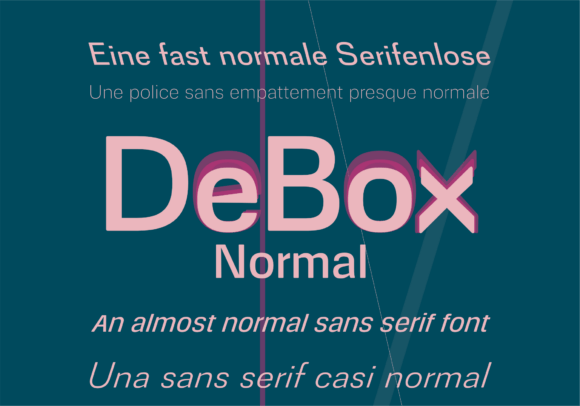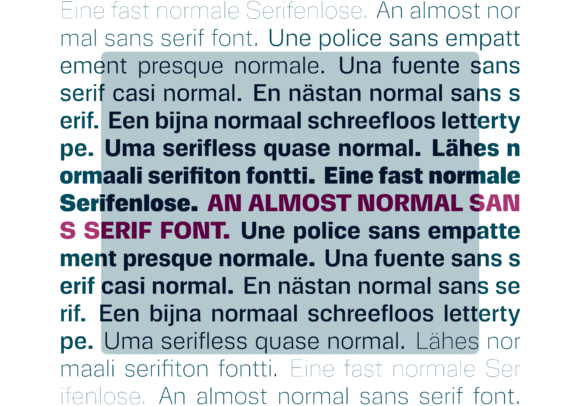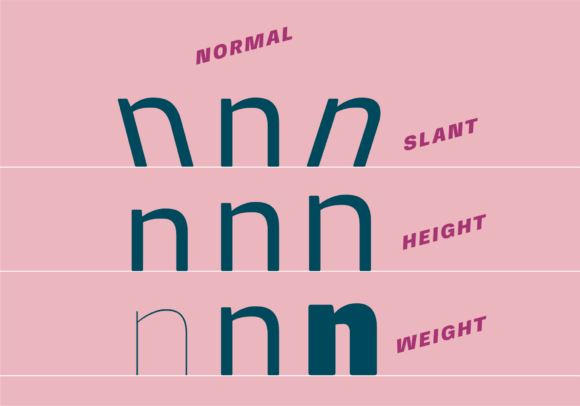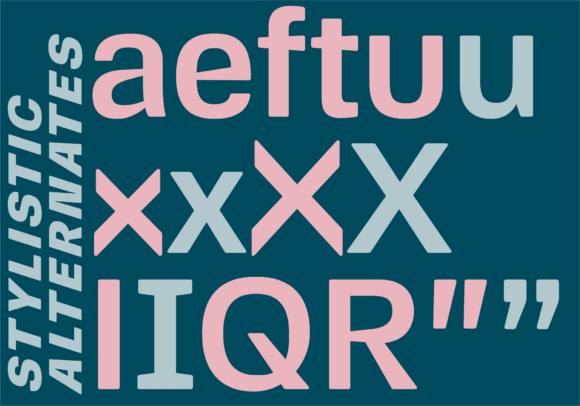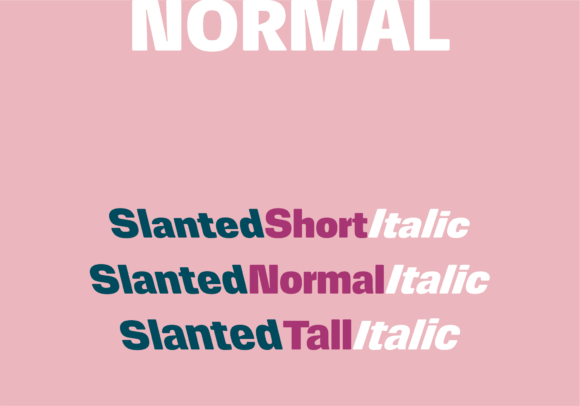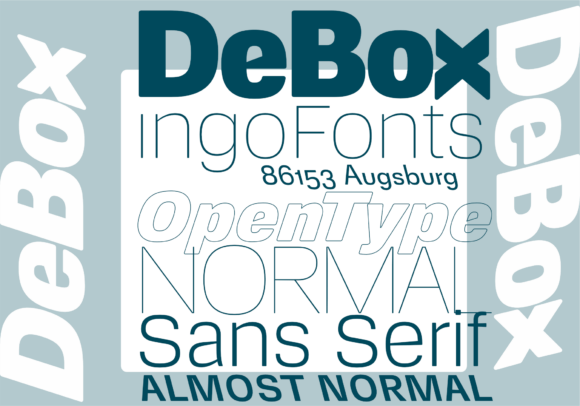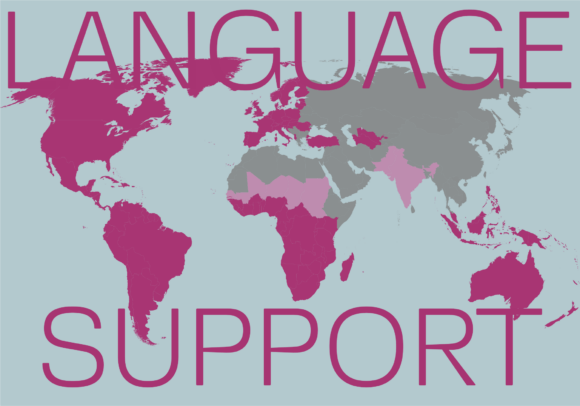
The Almost Normal Font that’s About to Revolutionize Your Design
Have you ever stared at a blank page, struggling to find the perfect font to convey your message? I know I have. The blank page stare is a designer’s worst enemy, and it’s often what sparks the search for the perfect font. For me, that moment came when I stumbled upon the DeBox Normal Font. This masterclass in modern versatility is a game-changer for designers looking to add a touch of sophistication to their work.
The DeBox Normal Font is a clean, neo-grotesque font that seamlessly blends a contemporary, tech-forward energy with a grounded aesthetic. Its unique proportions and shapes, characterized by boxy curves, make it stand out from the usual sans-serif fonts. What’s more, its variations – including a slanted version that defies traditional italics – offer endless possibilities for designers looking to push the boundaries of typography.
For designers, the DeBox Normal Font is a valuable asset that can elevate any project from ordinary to extraordinary. Its versatility, combined with its modern flair, makes it an ideal choice for anyone looking to add a touch of creativity to their work.
Debox Normal Font Key Features
- Font Family: Debox Normal Font is a sans-serif font family.
- Unique Characteristics: Debox Normal Font features clean lines, modern design, and a highly legible structure, making it suitable for body text and titles.
Debox Normal Font Review
I’ve had the chance to work with Debox Normal Font, and here’s my honest take on it.
- Neutral and Clean Design: Debox Normal Font has a sleek and minimalist aesthetic that makes it perfect for corporate or modern designs.
- High Legibility: The font is highly legible, making it easy to read even at smaller font sizes.
- Good Font Weight Range: The font offers a decent range of weights, allowing for a good balance between bold and light text.
- Limited Expressiveness: Debox Normal Font is a safe choice, but it may not add any unique personality to your design.
- No Distinctive Character: The font doesn’t have any distinctive features that set it apart from other sans-serif fonts.
Overall, Debox Normal Font is a solid choice for those looking for a clean and neutral font. While it may not be the most exciting option, it gets the job done. It’s a great choice for corporate or modern designs where you want a professional and sleek look. However, if you’re looking for a font that adds some personality to your design, you may want to consider other options.
Tips for Getting the Most Out of Debox Normal Font
Debox Normal Font is a versatile font that can be used for a variety of purposes, including:
- Body text in reports and documents.
- Headings and titles in presentations and marketing materials.
- Labels and captions in infographics and visualizations.
Remember to adjust the font size and color to ensure readability and visual appeal.
Debox Normal Font is commonly used in:
- Business
Alternatives to Debox Normal Font
Open Sans is a modern sans-serif font that is highly legible and versatile. It is suitable for body text, headings, and titles. Open Sans is a great alternative to Debox Normal Font for digital products, websites, and mobile applications.
Comparison to Debox Normal Font: Open Sans is more modern and sleek, while Debox Normal Font has a more traditional feel. Open Sans is also more versatile and can be used in a wide range of contexts, while Debox Normal Font is more suited for formal or business-related projects.
Lato is a sans-serif font that is highly legible and elegant. It is suitable for body text, headings, and titles. Lato is a great alternative to Debox Normal Font for designs that require a touch of sophistication and elegance.
Q: What is the recommended font size for the Debox Normal Font?
The recommended font size for the Debox Normal Font varies depending on the application and the intended use. However, as a general guideline, we recommend using font sizes between 12pt and 24pt for body text, and 36pt to 48pt for headings and titles. This will ensure optimal readability and legibility on most screens and devices.